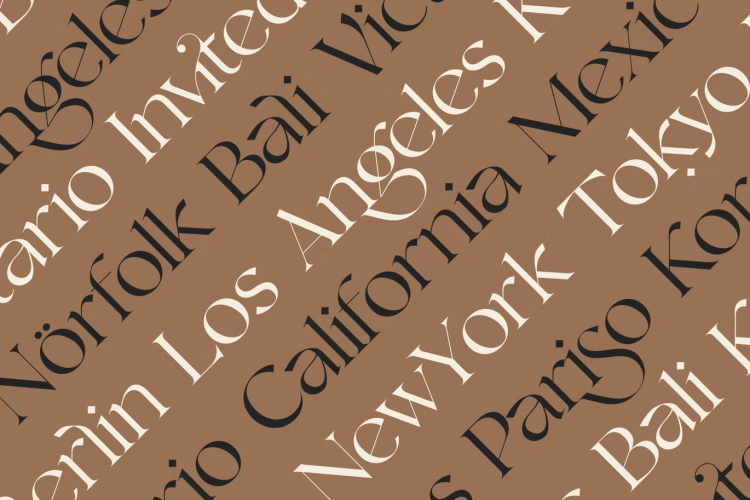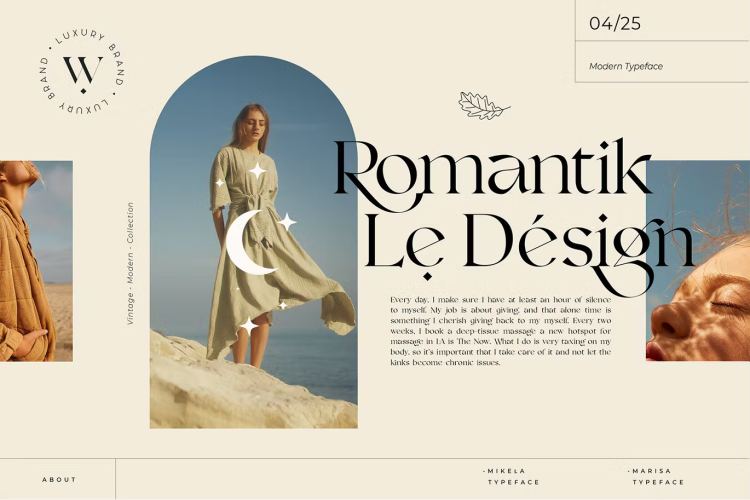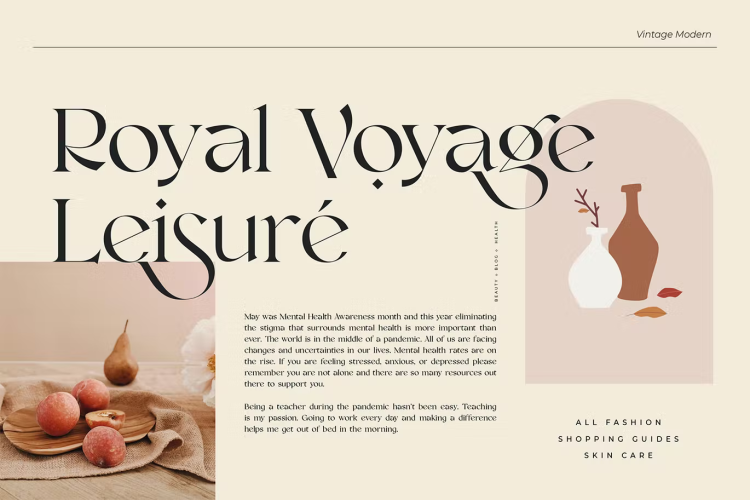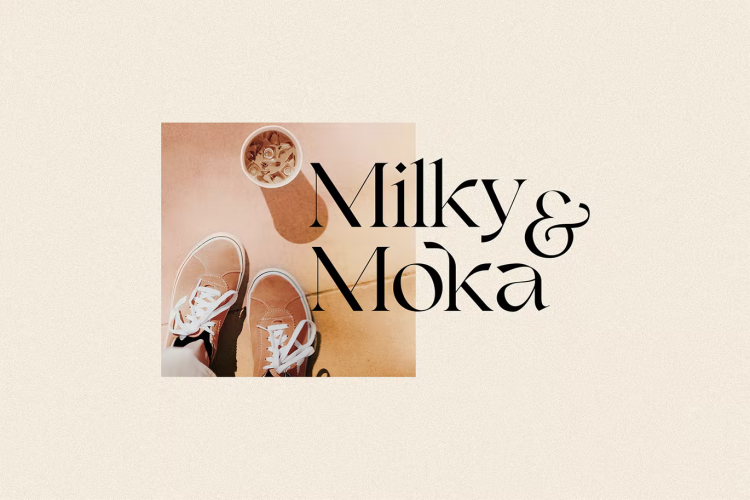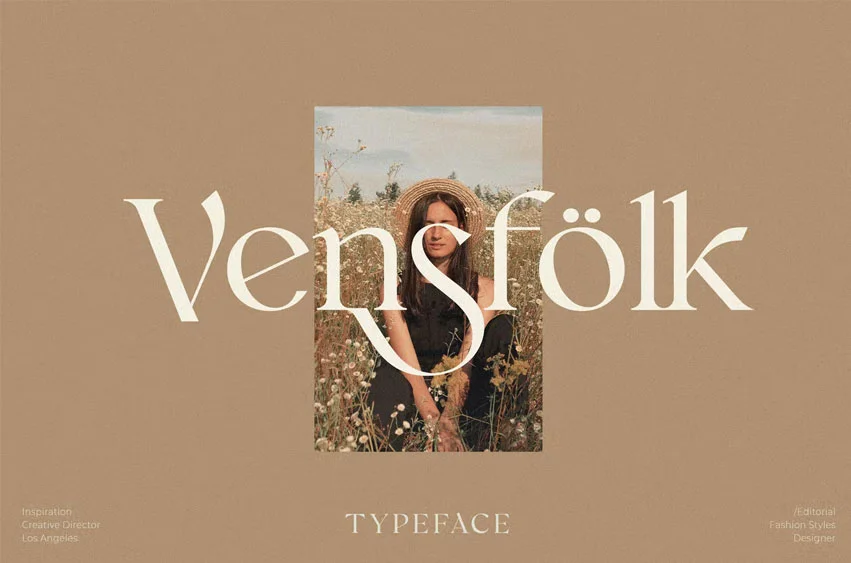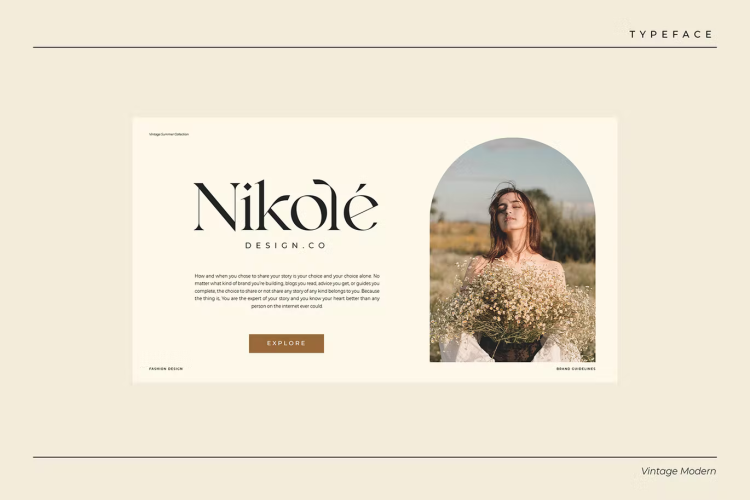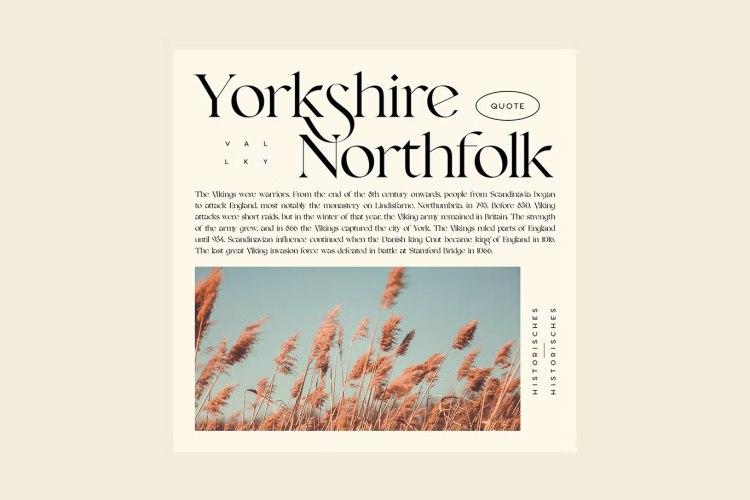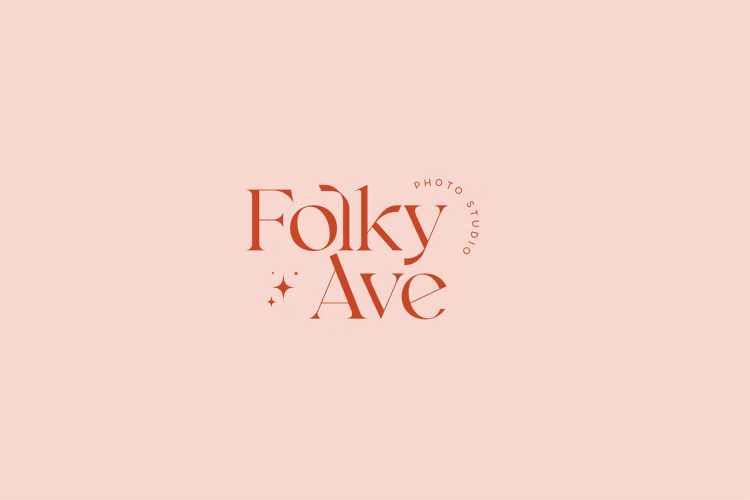
Vensfolk Font
Vensfolk Font is a Modern vintage serif typeface with beautiful ligatures, tons of special alternative glyphs, ornament, and multilingual support. It’s a very versatile font that works great in large and small sizes. Perfect for editorial projects, Logo design, Clothing Branding, product packaging, magazine headers, or simply as a stylish text overlay to any background image.
Where Vensfolk Font works best
Vensfolk Font gives long-form text a classic, trustworthy rhythm — ideal for magazine spreads, annual reports and book interiors.
Pair Vensfolk Font with generous letter-spacing for wordmarks in fashion, hospitality, wine and jewellery branding.
Use Vensfolk Font for slide titles in Keynote, PowerPoint or Google Slides to add authority without looking dated.
What is Vensfolk Font good for?